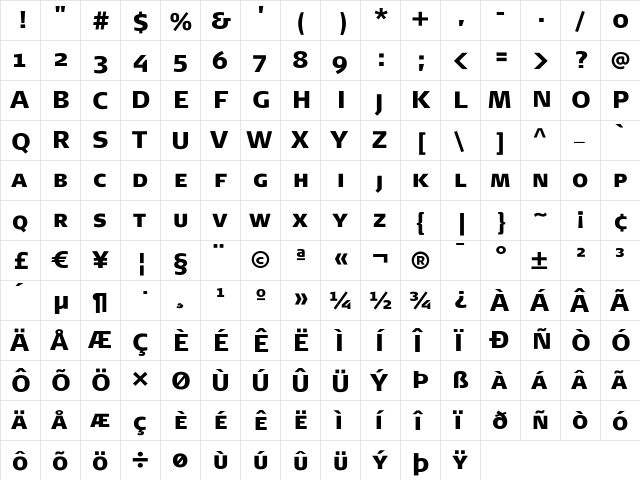
SignaCaps-Black Regular Font Preview
SignaCaps-Black Regular
SignaCaps-Black Regular Font Details
Design Context for SignaCaps-Black Typeface
SignaCaps-Black is a composed and adaptable typeface that performs quietly and consistently across a wide range of design contexts.
Pro Tip: Use SignaCaps-Black in both headline and body roles to test its range before committing to a single application.